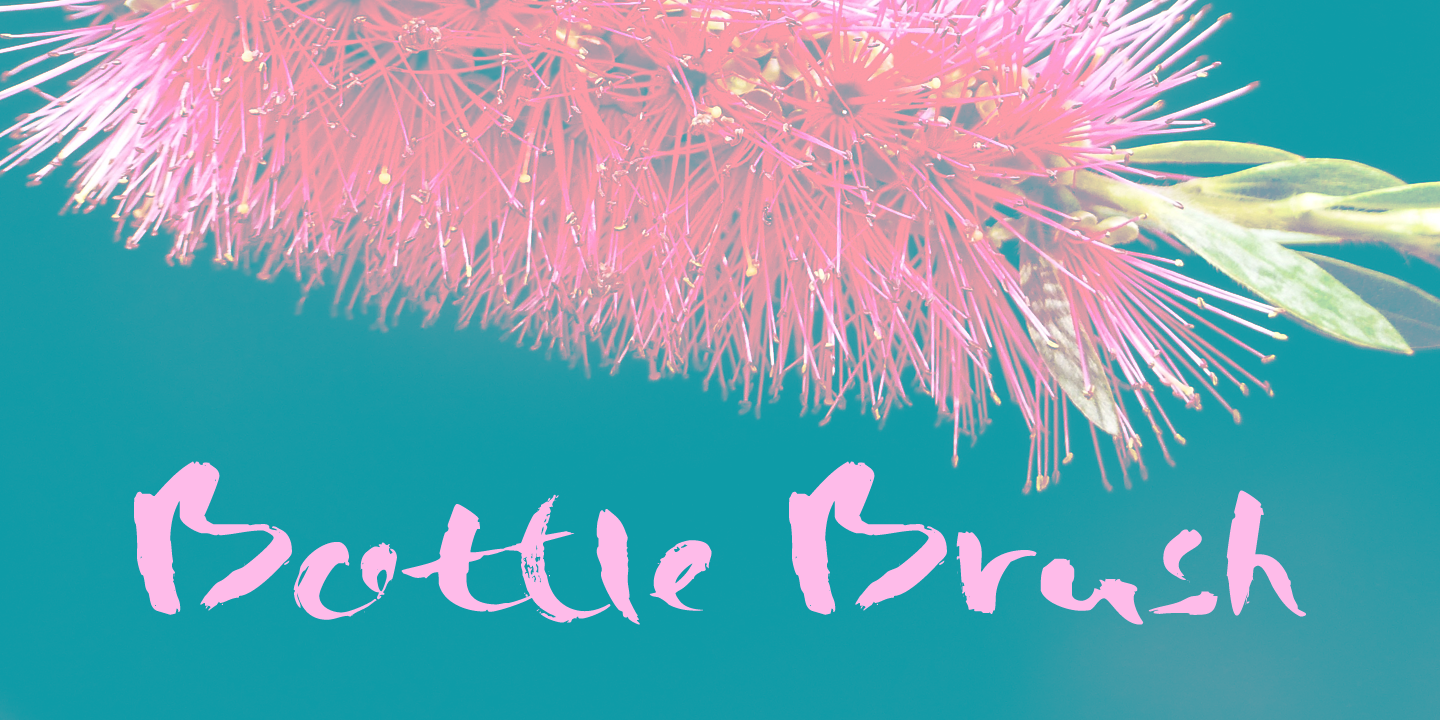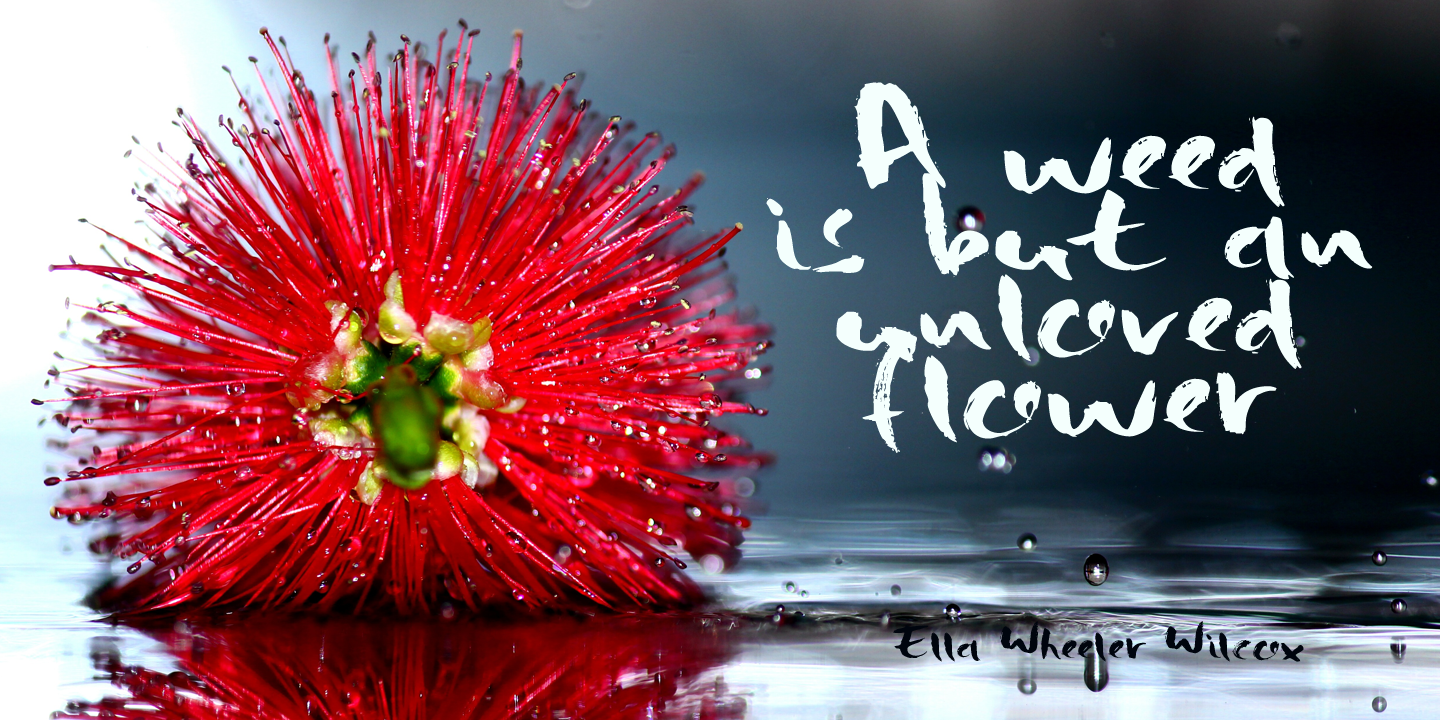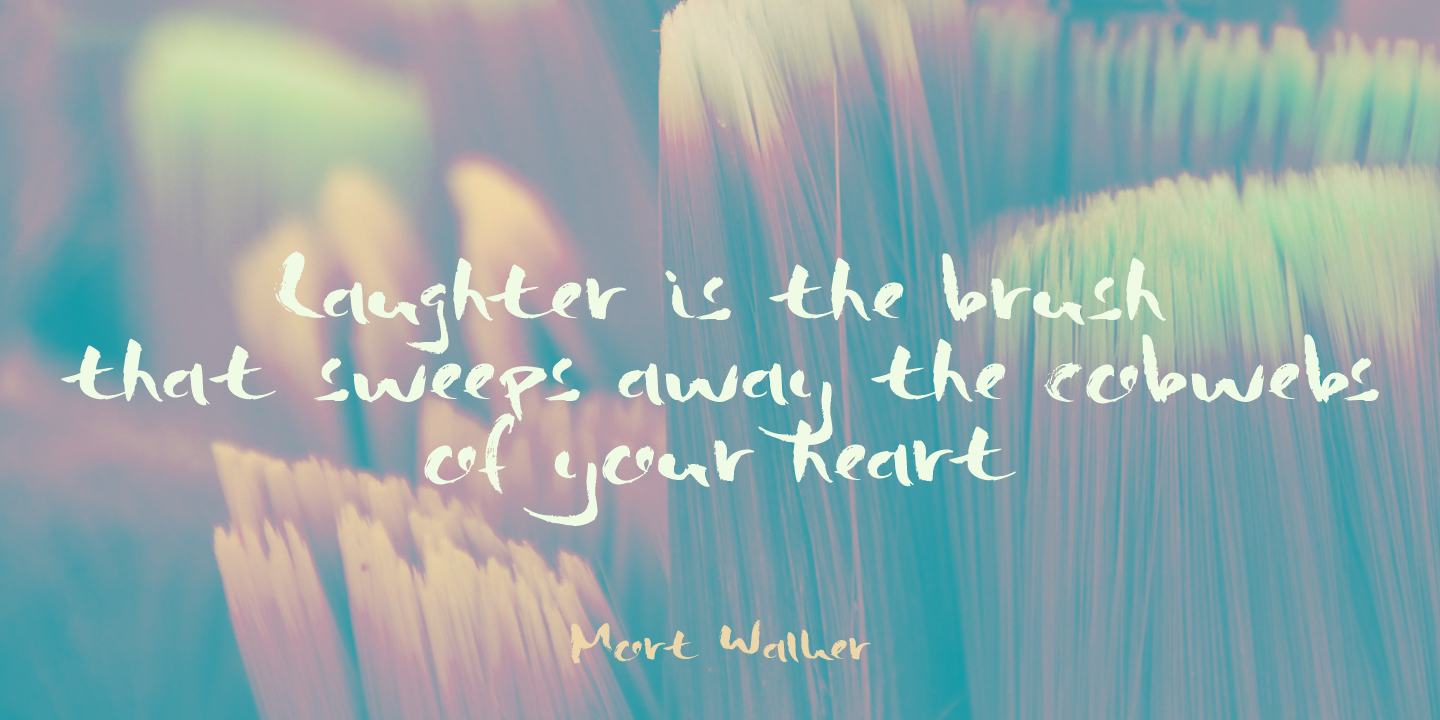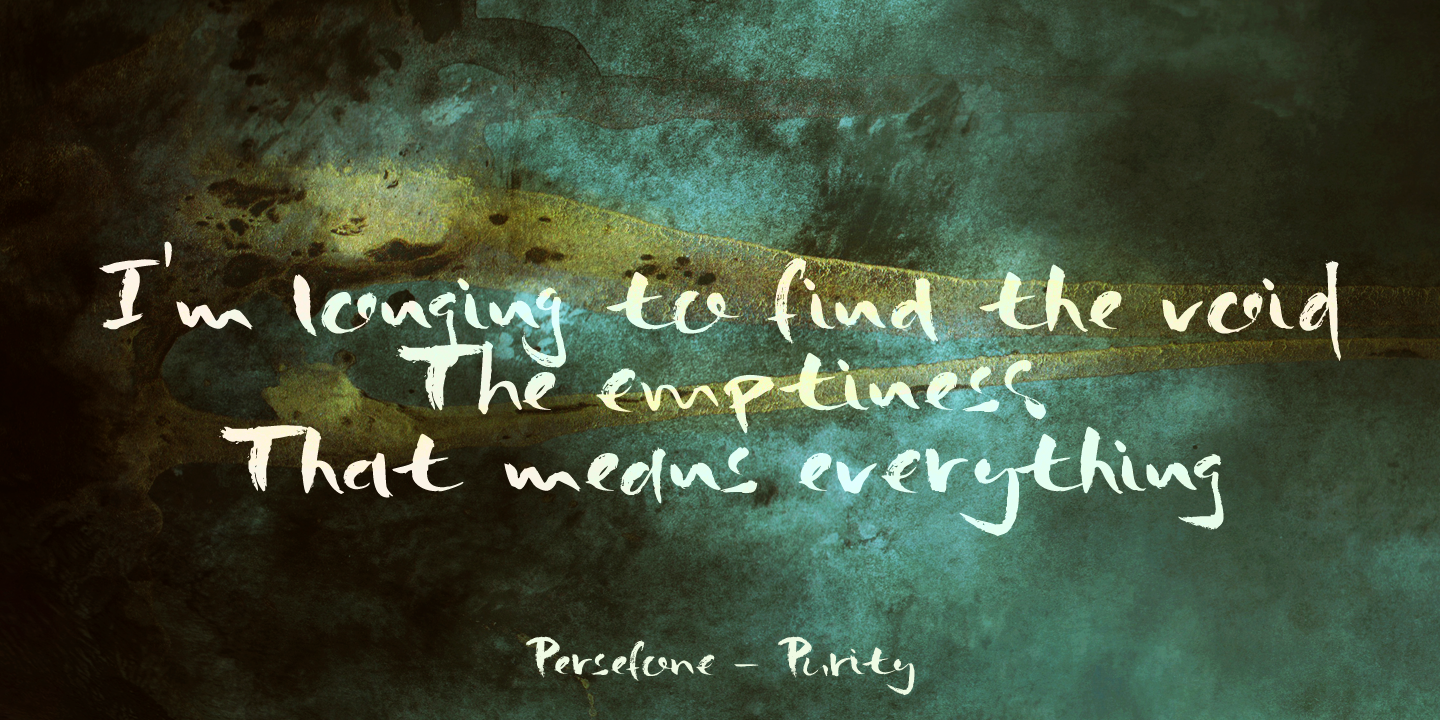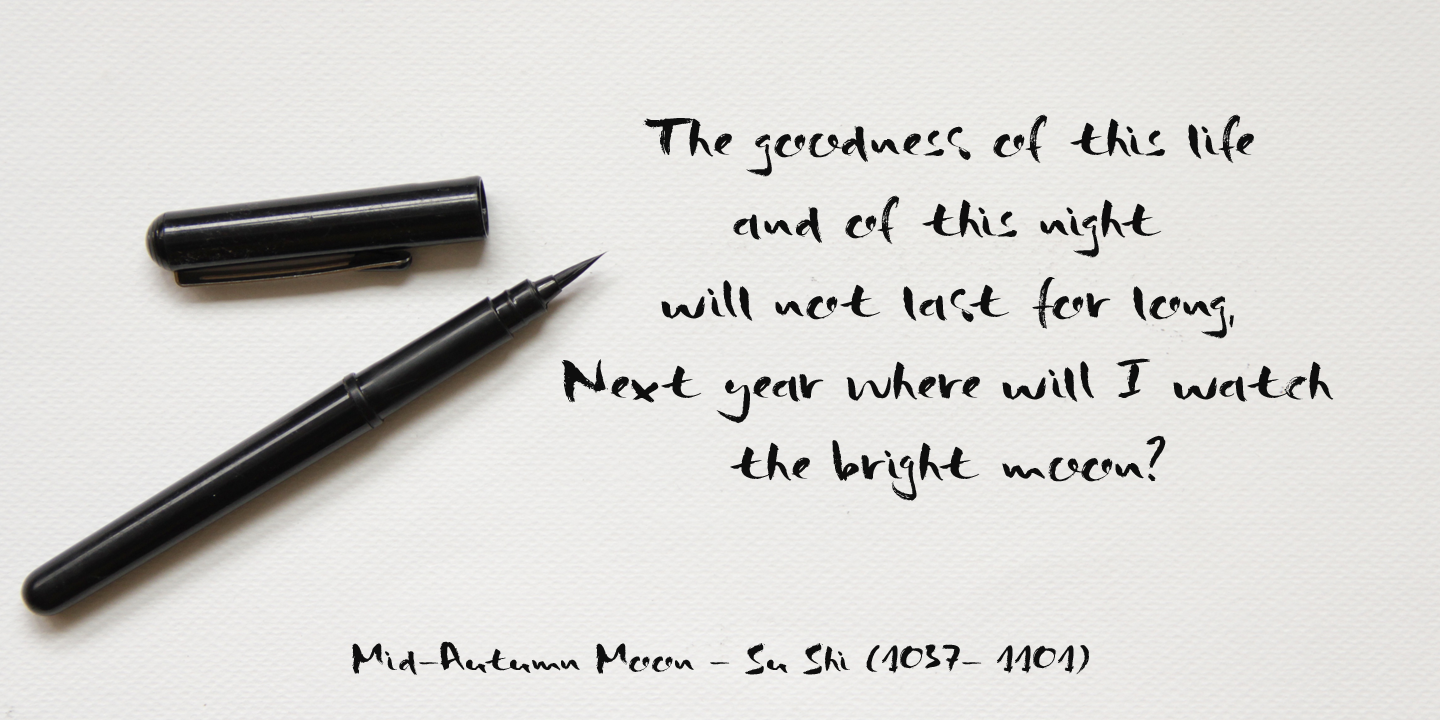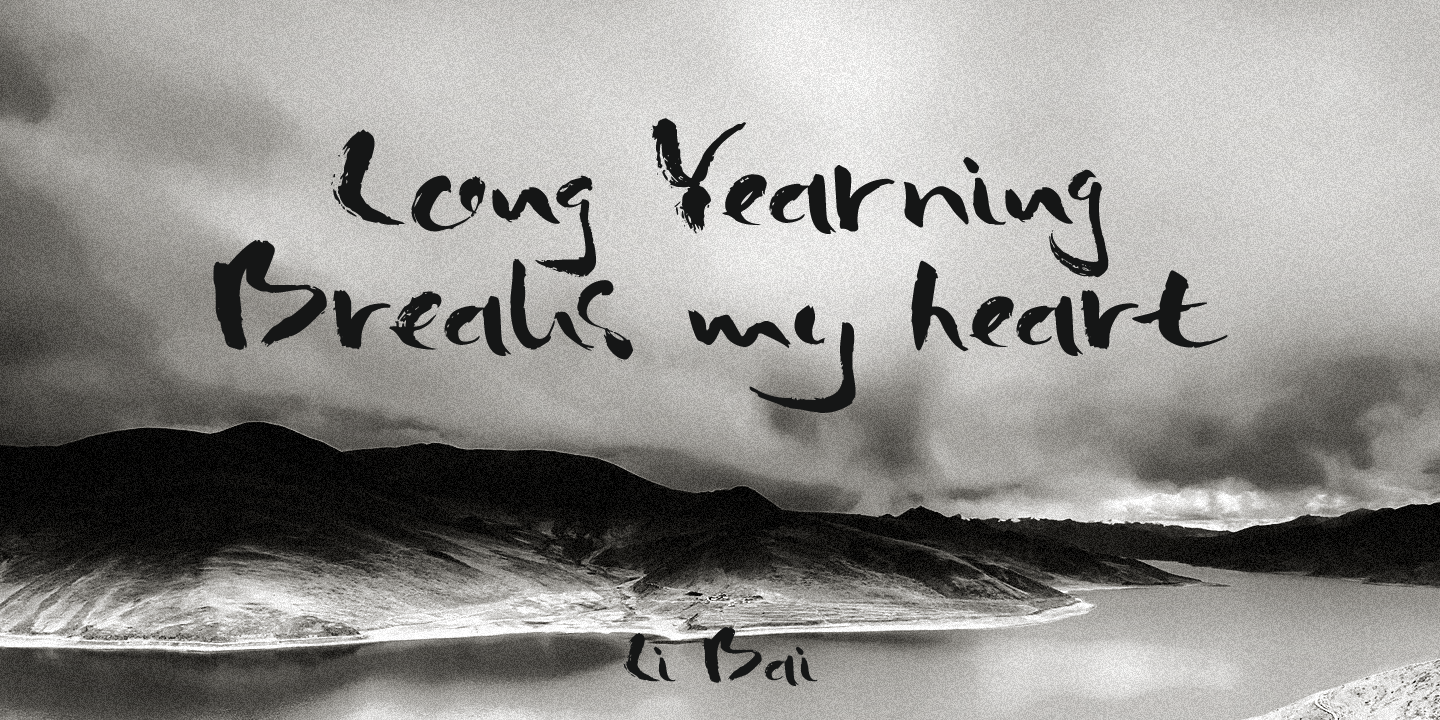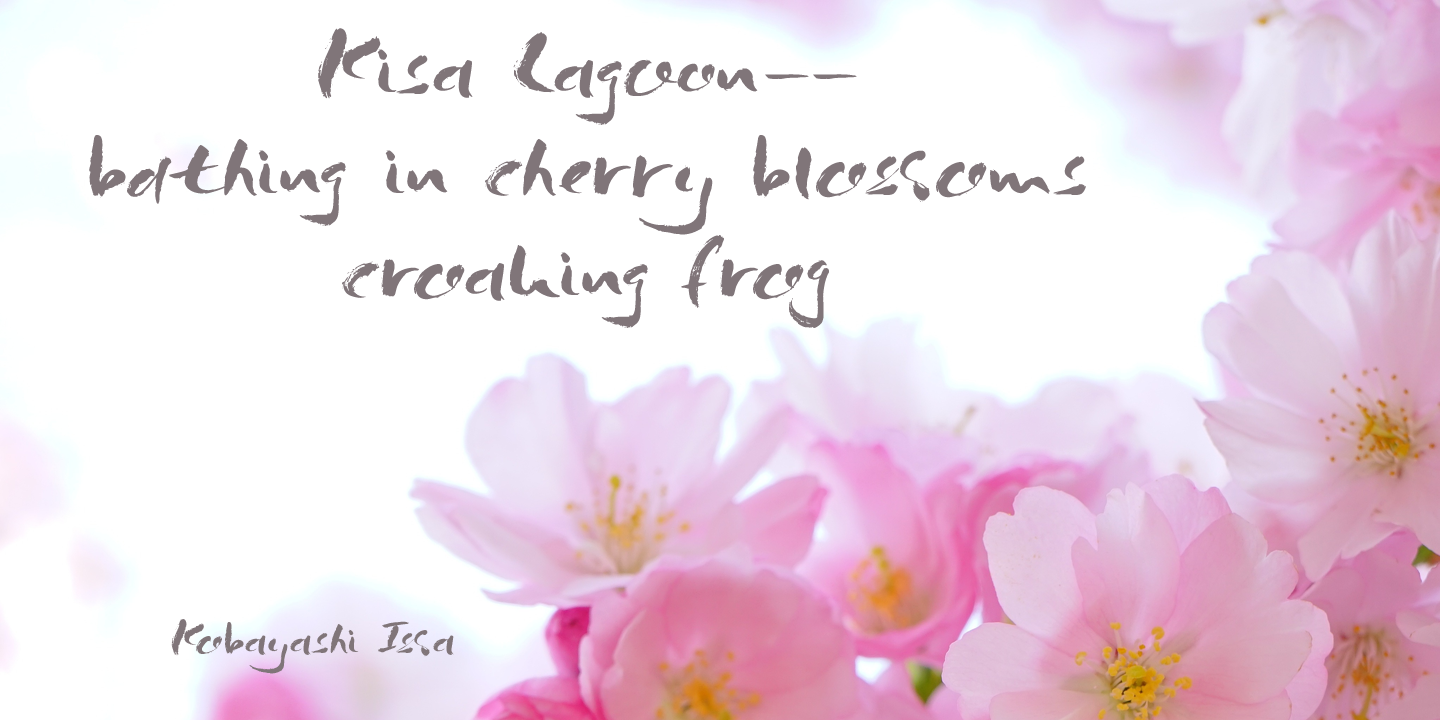
A Bottle Brush (a.k.a. Callistemon) is an Australian shrub. Its flowers resemble, well, bottle brushes, hence the name. Bottle Brush is also a very messy, yet quite lovely brush font. I made it with a Japanese brush pen. It comes with a bunch of alternate glyphs, some ligatures and a whole lot of diacritics!